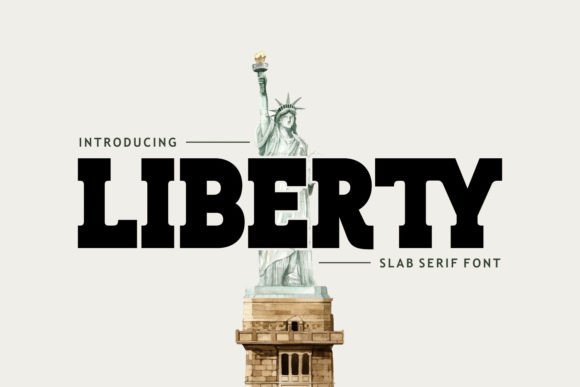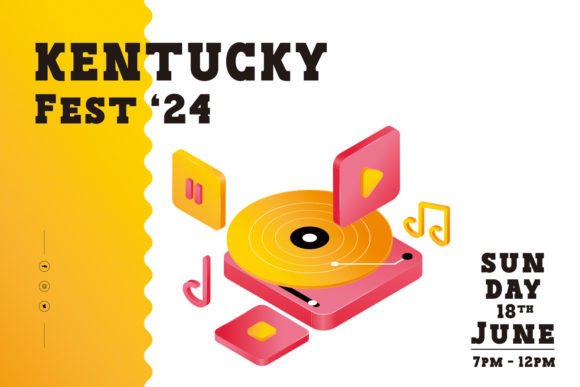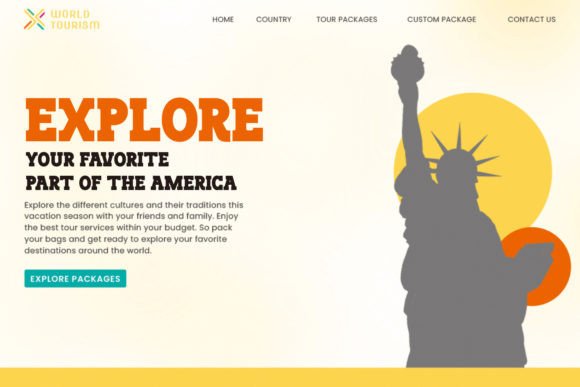
Liberty Font: A Bold Slab Serif for Patriotic & Retro Designs
About the Liberty Font
Let us introduce you to Liberty Font, where timeless design meets modern craftsmanship. Introducing “LIBERTY” – a commanding slab serif font meticulously crafted to capture the essence of American freedom and patriotism. With its bold strokes and timeless appeal, “LIBERTY” is the perfect choice for commemorating USA Independence Day, Military Day, and Veteran’s Day. Whether you’re crafting greeting cards, adorning decorations, or embellishing craft lettering and embroidery projects, this font lends an air of dignity and reverence to your designs.
Liberty Font’s strong, bold forms make it ideal for headlines, logos, and short, impactful statements across various media—from posters and packaging to branding materials. Its assertive nature, however, makes it less suitable for body text or UI elements where readability over long stretches is crucial. The weight and strong vertical stress might overwhelm smaller sizes or dense layouts.
The font’s personality is best described as bold and authoritative, conveying a sense of strength and tradition. To balance this, pairing it with a clean sans-serif like Open Sans for body copy or a more delicate script font like Great Vibes for accents would create visual harmony and contrast. A geometric sans-serif such as Montserrat could also provide a modern counterpoint.
Consider Liberty Font for projects needing a powerful and patriotic feel, brands aiming for a classic yet assertive image, or designs emphasizing strength and heritage. It is less appropriate for projects requiring a delicate, playful, or minimalist aesthetic.
Liberty Font Usage Examples
Liberty Font Example